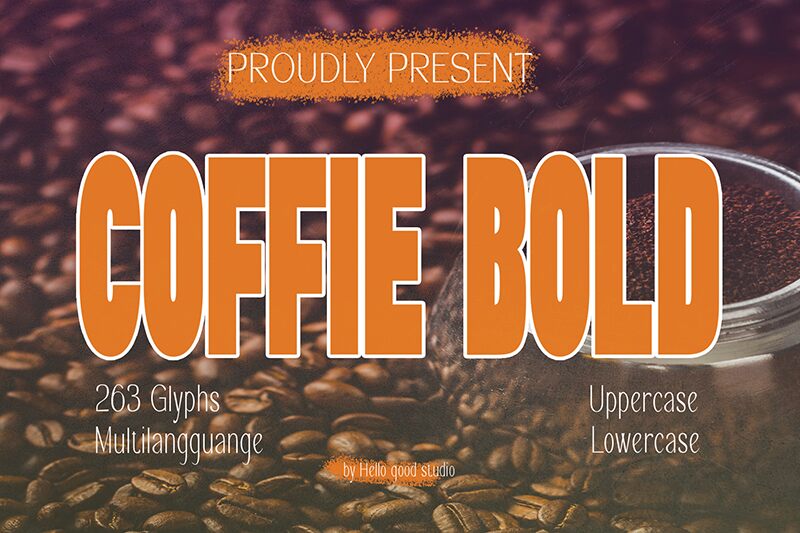
Coffie Bold
Coffie Bold font by Studio Hello Good is a thick sans serif font with a condensed construction. Thickset and striking with geometric uniformity, this modern font impresses with its simple yet impactful look. Its straightforward appearance makes it a go-to typeface for highlighting text headings in both digital and print media.
The multipurpose free Coffie Bold is a fantastic pick for advertising designs like posters, promotion plans, or store banners. Use it equally effectively in movie covers, book covers, magazine titles, UI/UX design interfaces, website headers, images that appear on social platforms like Instagram or Facebook among other similar graphic items.